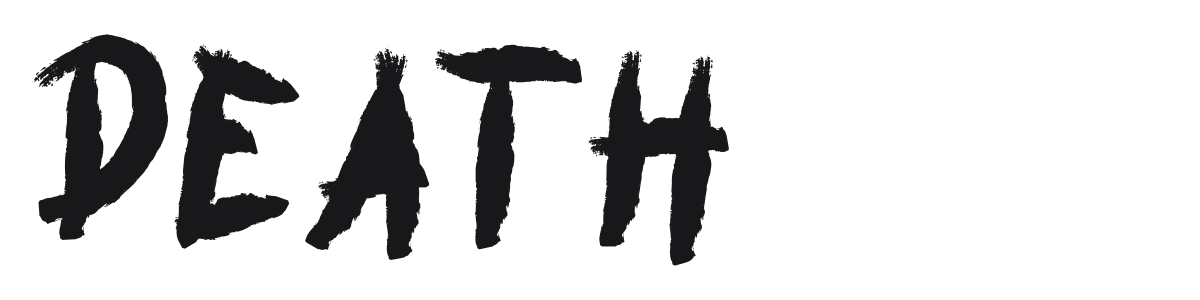
Death
Death is a heavy grunge brush font with raw, splintered strokes that look like they were painted fast and left to bleed. The thick, irregular characters carry real texture and weight, pulling from punk and metal aesthetics. It commands attention at large sizes and disappears in the noise at small ones.